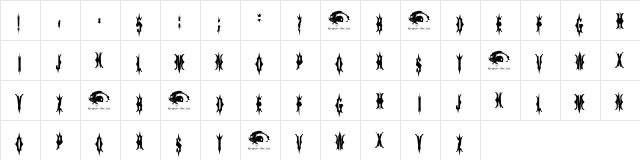
5 Fingered Goth SWTrial Regular Font Preview
5 Fingered Goth SWTrial Regular
5 Fingered Goth SWTrial Regular Font Details
Design Context for 5 Fingered Goth SWTrial Typeface
5 Fingered Goth SWTrial is a composed and adaptable typeface that performs quietly and consistently across a wide range of design contexts.